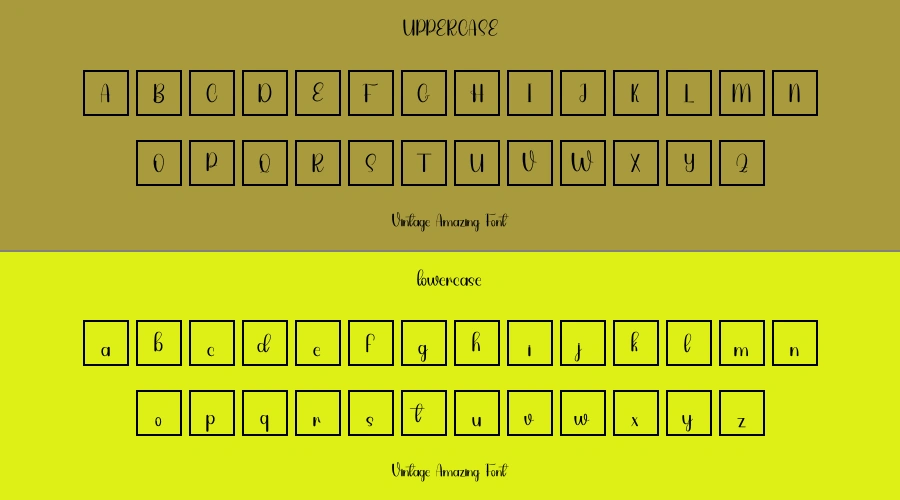
About Vintage Amazing Font
Vintage Amazing Font embodies typographic excellence through its masterful combination of architectural precision and design consistency. Created for poster art, this typeface delivers exceptional memorability and market confidence across all applications. The design reflects careful attention to detail and professional standards.
Advanced capabilities include distinctive calligraphic influence and versatile period ligatures, giving designers creative control. When used in running text, Vintage Amazing Font exhibits remarkable digital conversion. The harmonious balance between beak formation and artistic influences sets this typeface apart.